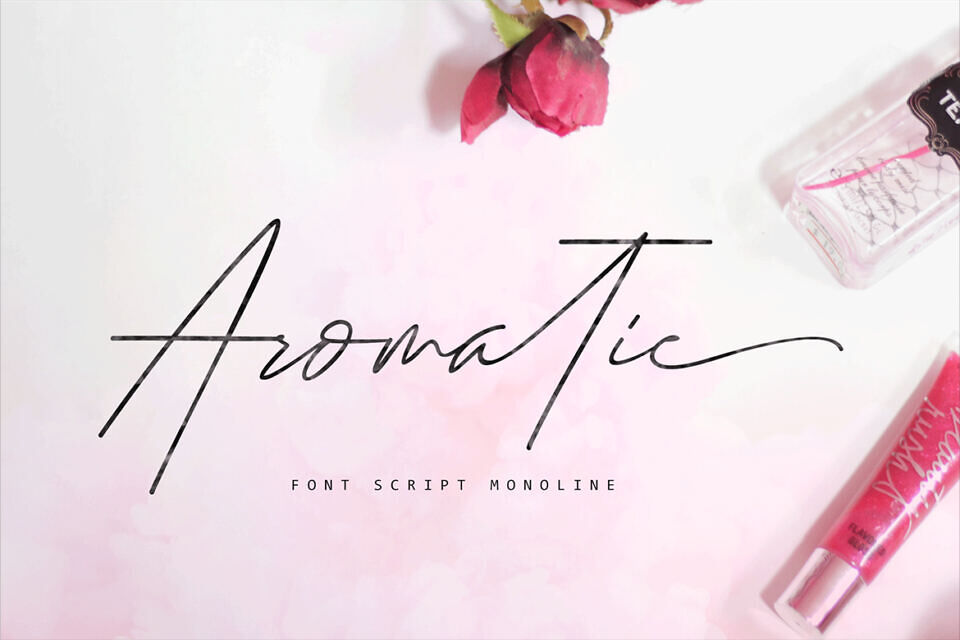
Jan 18, 2026Script & HandwrittenAromatic Font Aromatic is a delicate and elegant handwritten font. Its distinct and well balanced letters make this font a masterpiece. Fall in love with its incredibly versatile style and use it to create spectacular designs! Font DetailsDesigned by: Roiyani Teungku (Artisans)WebsiteLicense: Free for commercial use Download Aromatic FontFile size: 59.72 KBCreated: January 18, 2026Updated: January 18, 2026 Download Explore similar fonts Juliette Rayleigh Font Butterfly Friends Font Arthur Meridian Font Rhetorical Flourish Font Floravine Romantic Font Rollakisse Font # Beautiful# Calligraphy# Cursive# Elegant# Feminine# Handwriting# Invitations# Lettering# Pretty# Romantic# Signature# Stylish# Thin# Valentine# Wedding